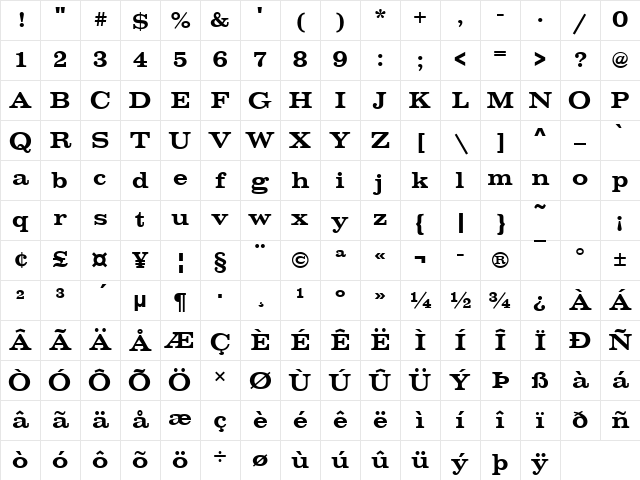
VoltaTMed Regular
Design Context for VoltaTMed
VoltaTMed is a composed and adaptable typeface that performs quietly and consistently across a wide range of design contexts.